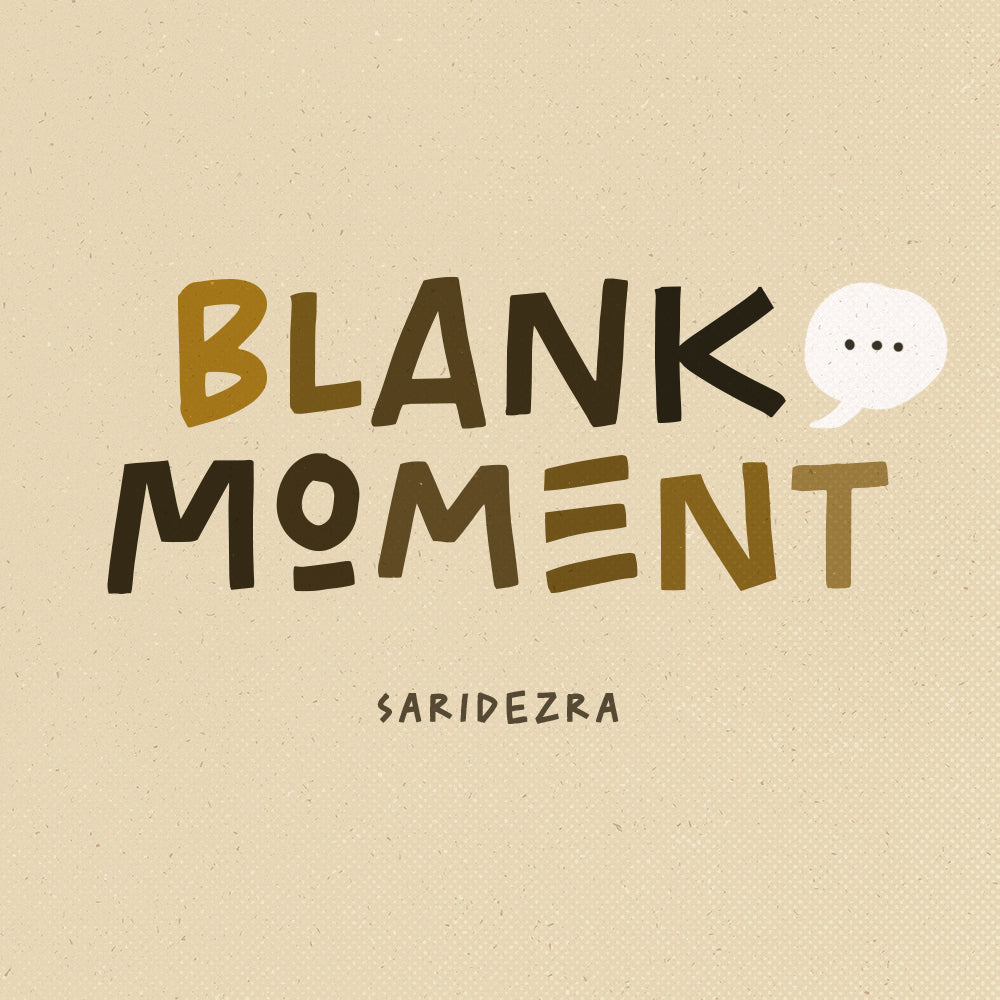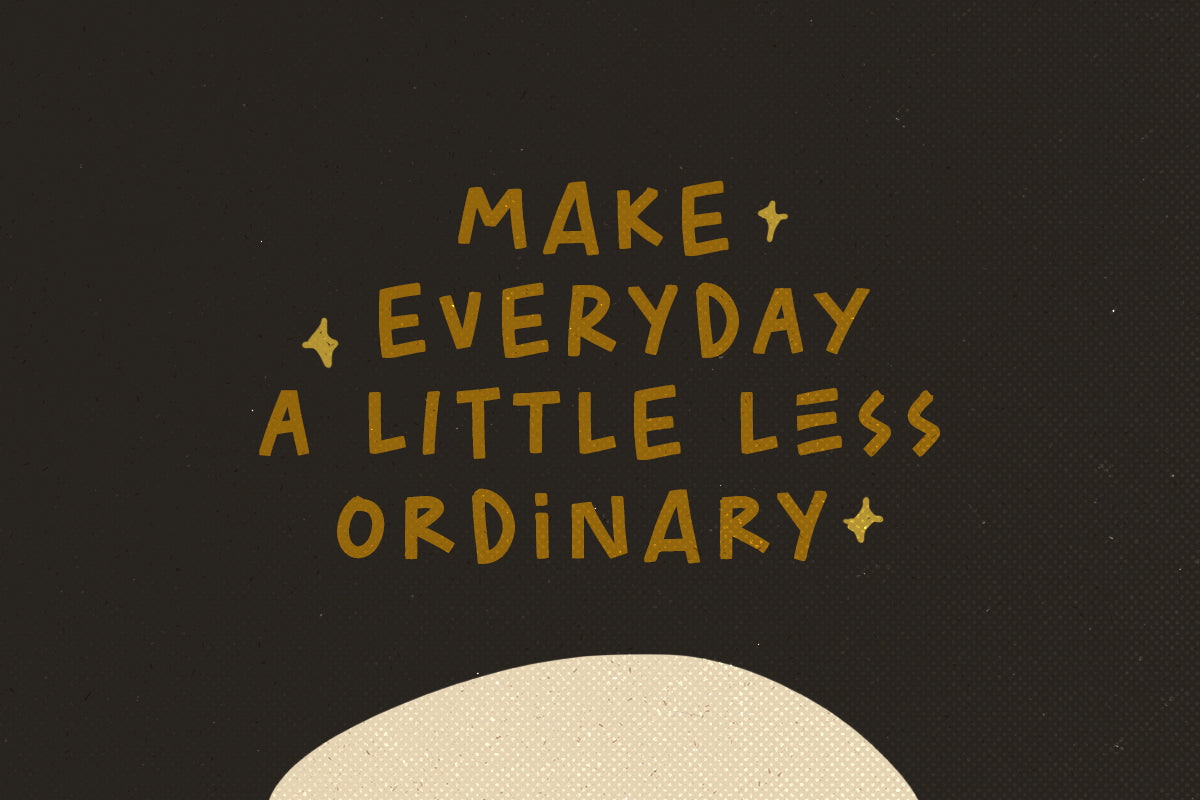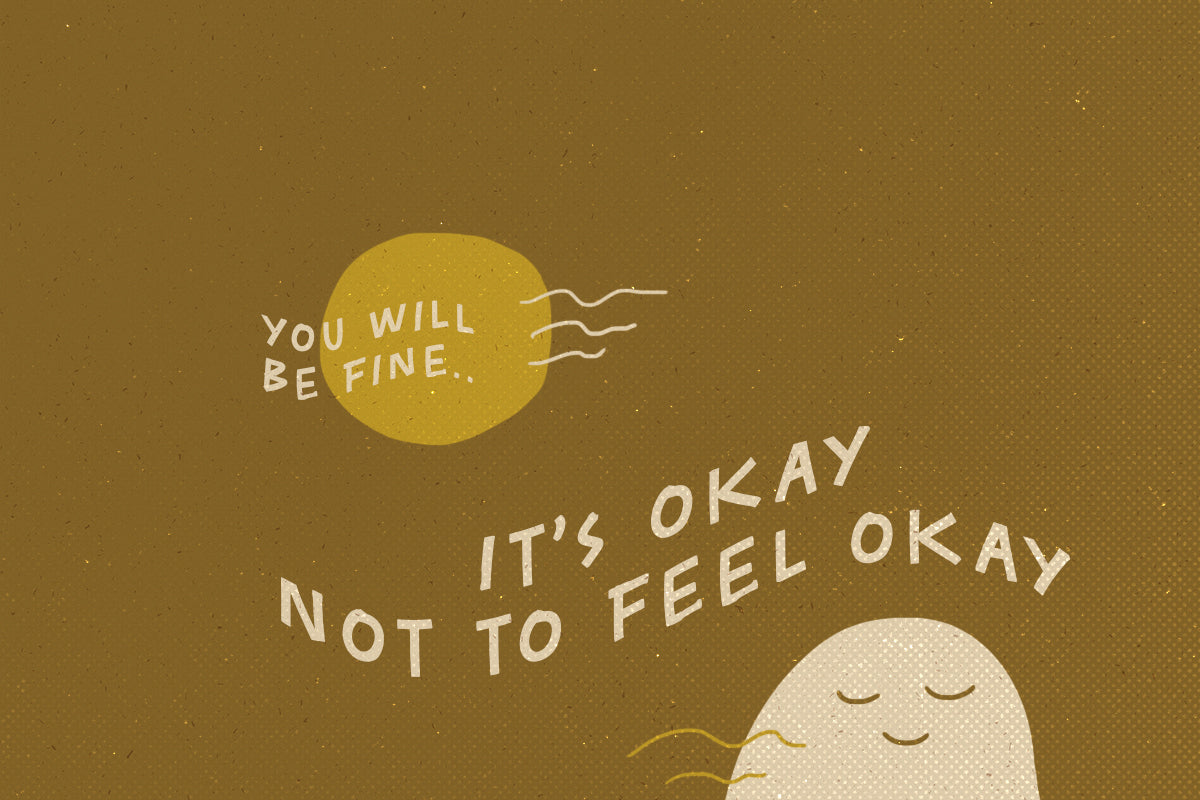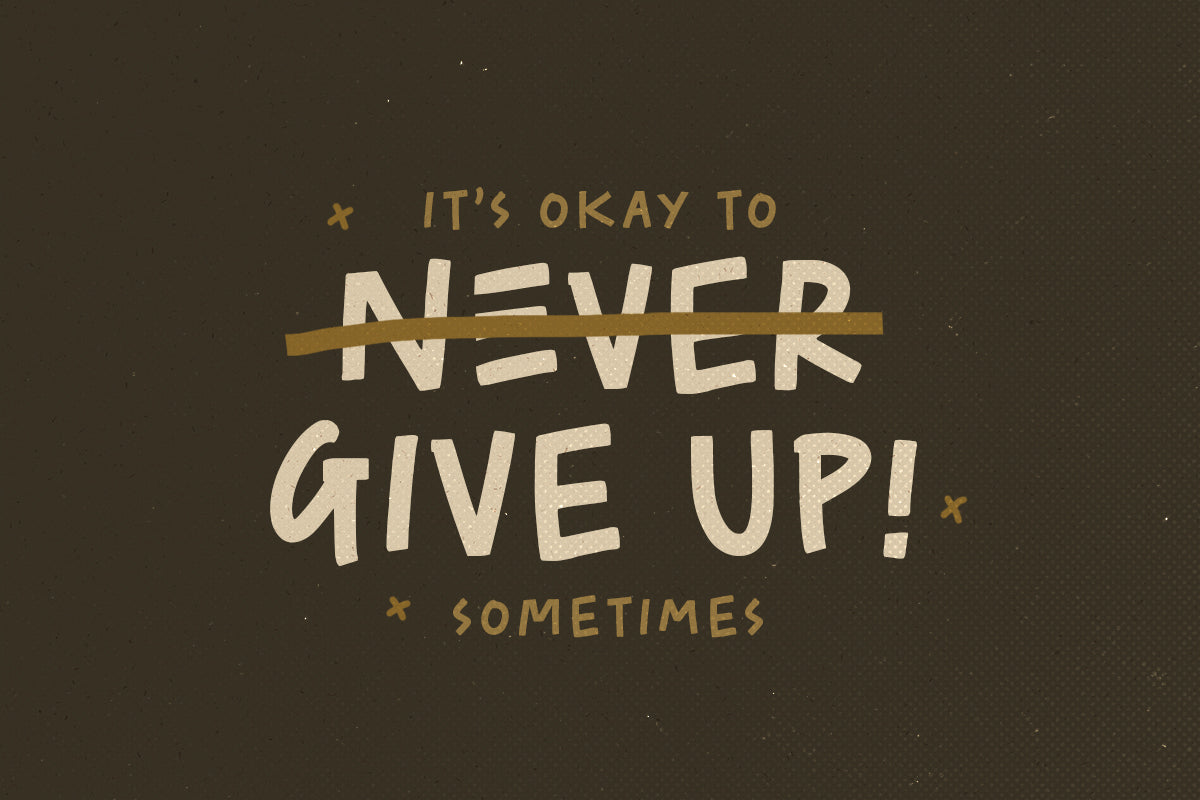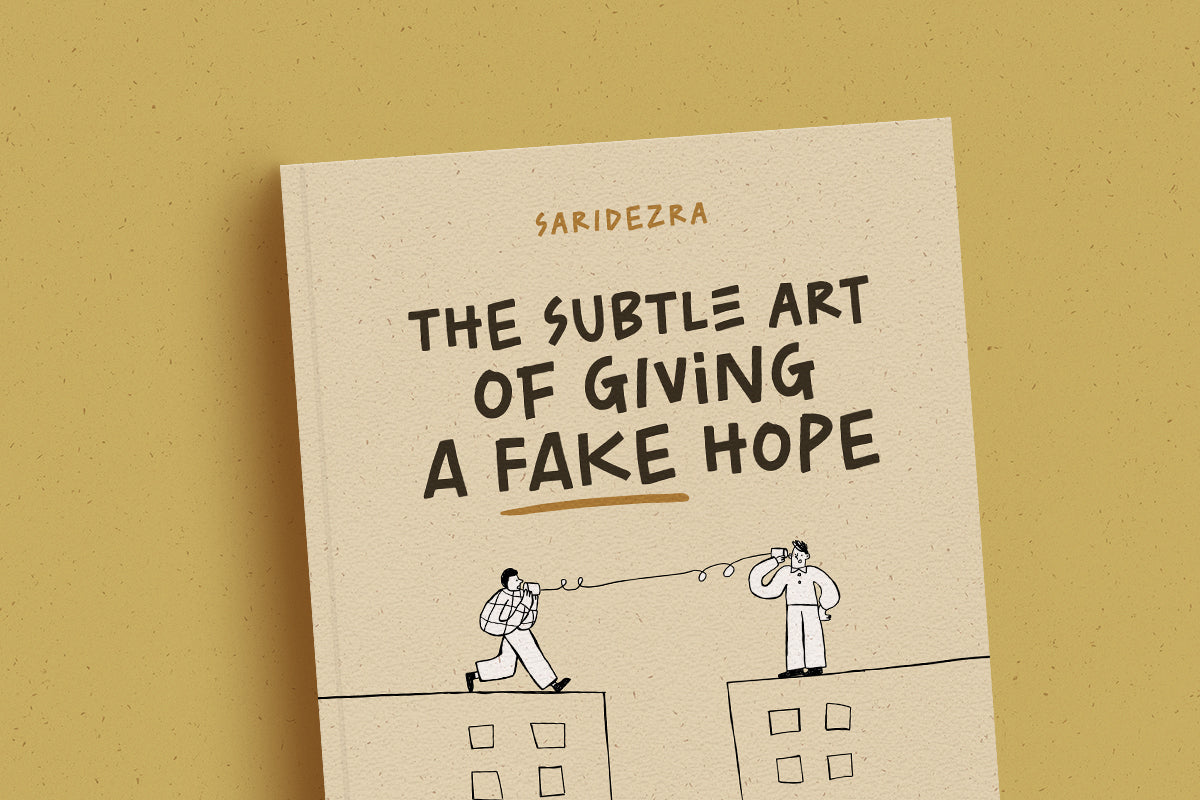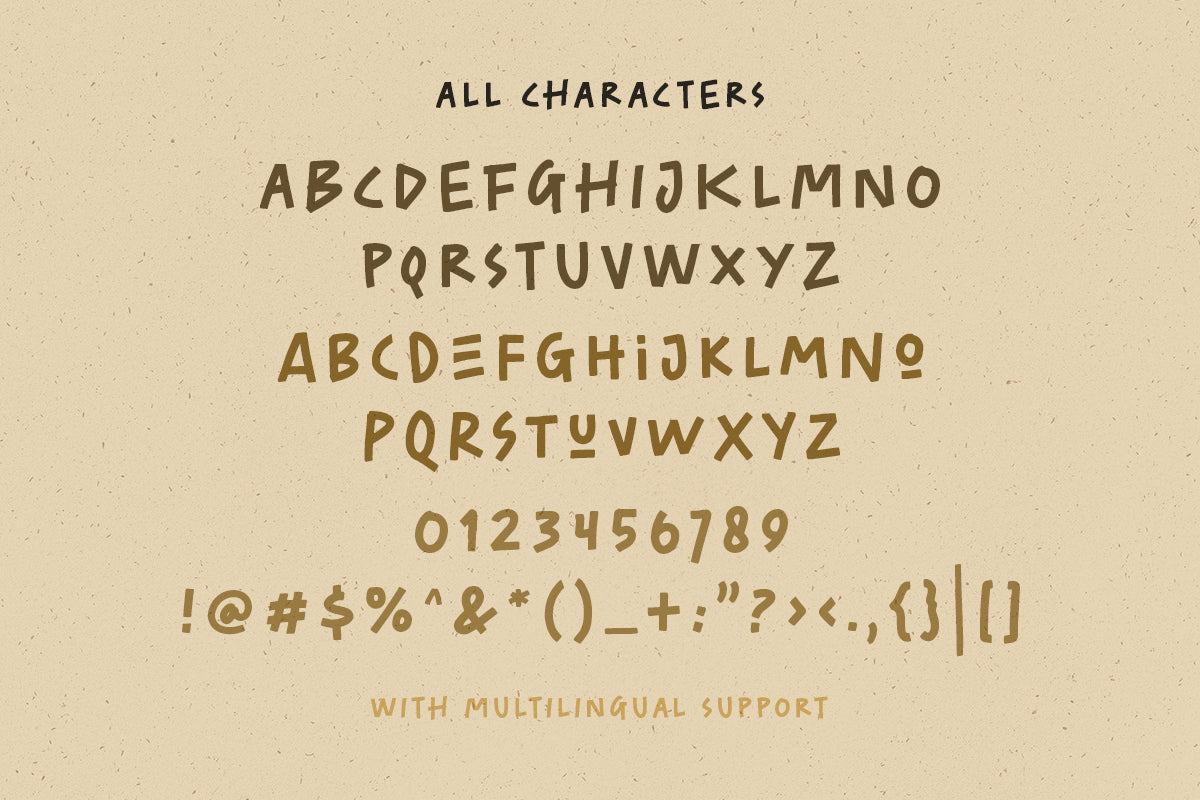
Blank Moment - Quotable Font
Blank Moment is a quotable handwritten sans font that features unique lowercase letters and supports multilingual use. It is designed to add a natural and humanist touch to various projects.